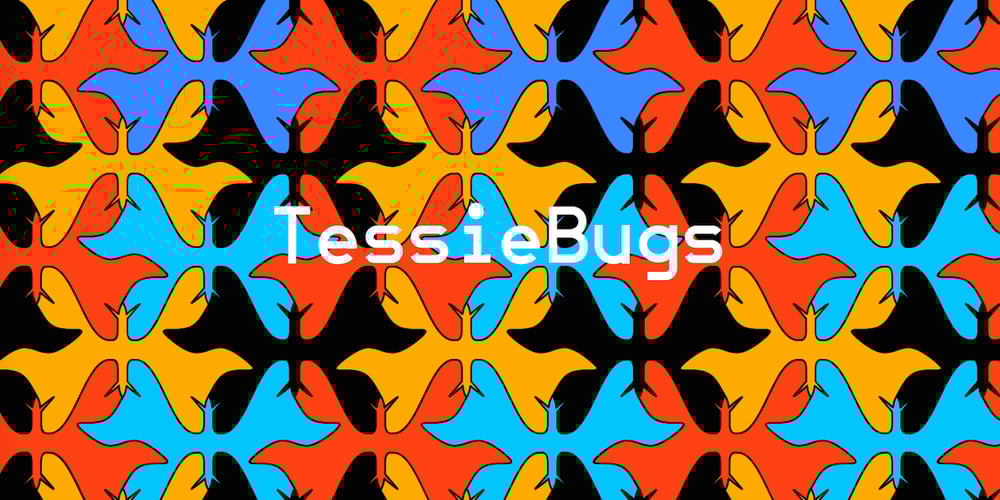
TessieBugs
TessieBugs font
TessieBugs Font Family was designed by Robert Schenk and published by Ingrimayne Type. TessieBugs contains 2 styles and family package options. A tessellation is a shape that can be used to completely fill the plane—simple examples are isosceles triangles, squares, and hexagons. Tessellation patterns are eye-catching and visually appealing, which is the reason that they have long been popular in a variety of decorative situations. These Tessie fonts have two family members, a solid style that must have different colors when used and an outline style. They can be used separately or they can be used in layers with the outline style on top of the solid style. For rows to align properly, leading must be the same as point size. To see how patterns can be constructed, see the “Samples” file here. TessieBugs contains shapes that resemble insects such as moths, ants, butterflies, and weevils. (Earlier tessellation fonts from IngrimayneType, the TessieDingies fonts, lack a black or filled version so cannot do colored patterns. The addition of a solid style that must be colored makes these new fonts a bit more difficult to use but offers far greater possibilities in getting visually interesting results.)